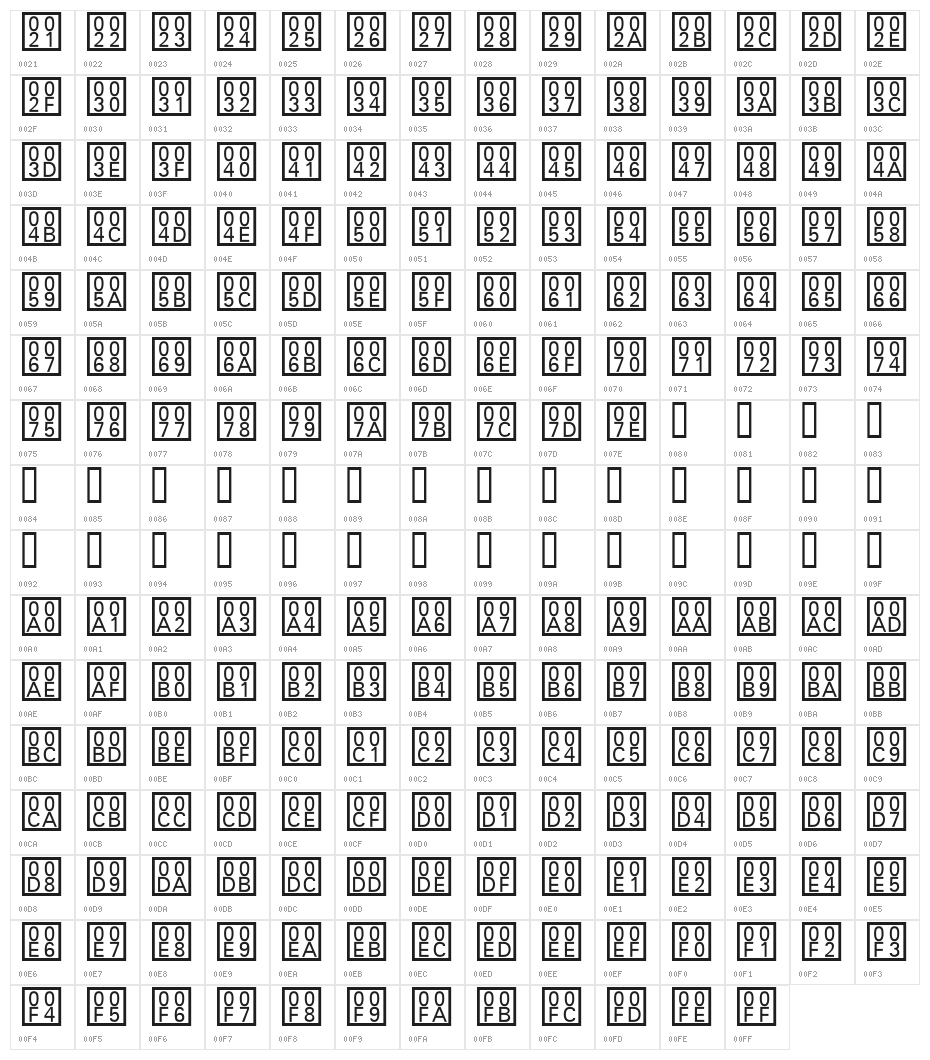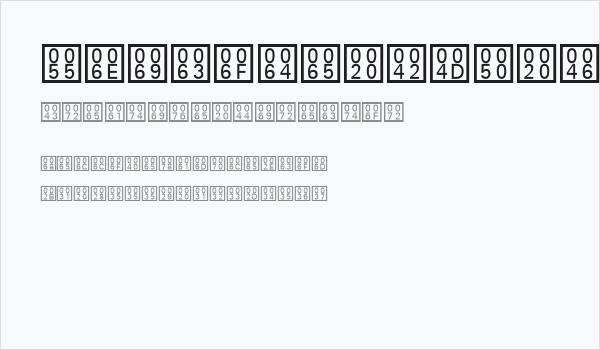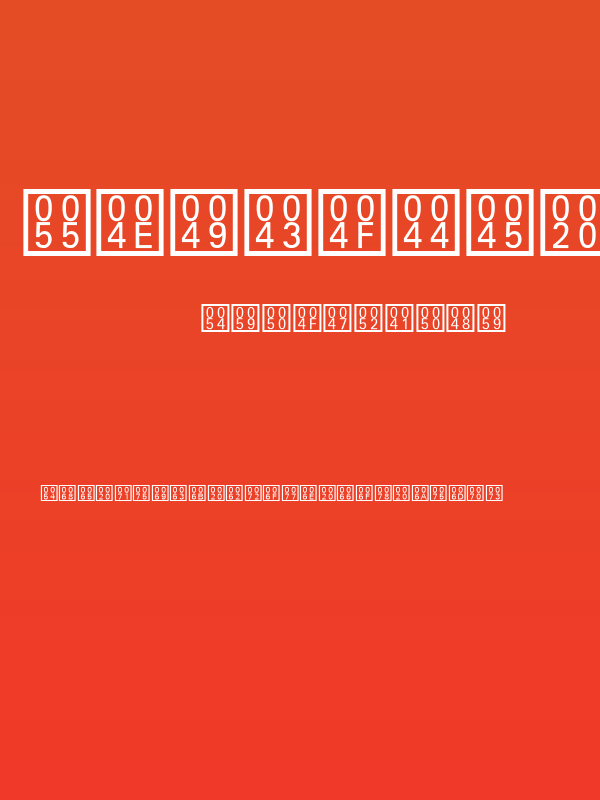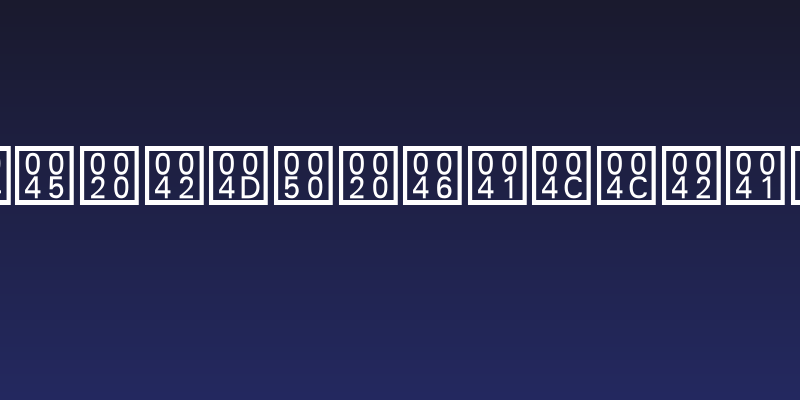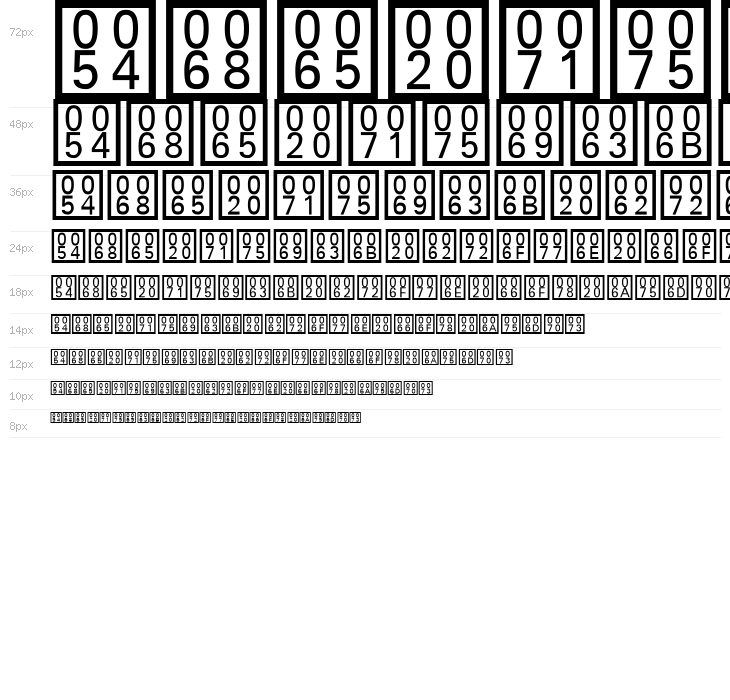
Unicode BMP Fallback SIL Font
Unicode BMP Fallback SIL Description
This font is a highly legible, monospaced typeface designed for clear and precise text display. Each character is enclosed within a box, providing a structured and uniform appearance. The characters are evenly spaced, ensuring consistent readability across different sizes and contexts. The design is straightforward, with no additional embellishments, making it suitable for technical and digital applications. The font's simplicity and clarity make it ideal for environments where precision is crucial, such as coding, data representation, and technical documentation.
| Use Case | Technical documentation, Coding, Data representation |
| Proposed Projects | Suitable for coding environments, technical documentation, data representation, and any project requiring precise and clear text display. |